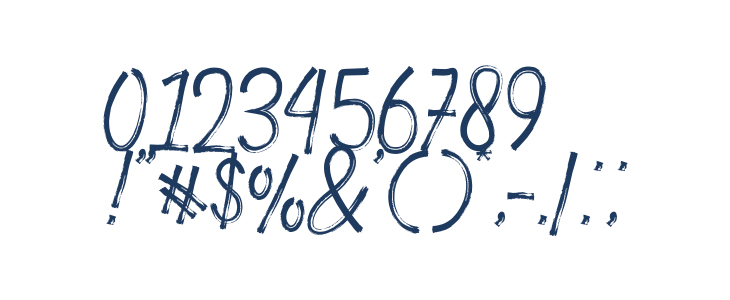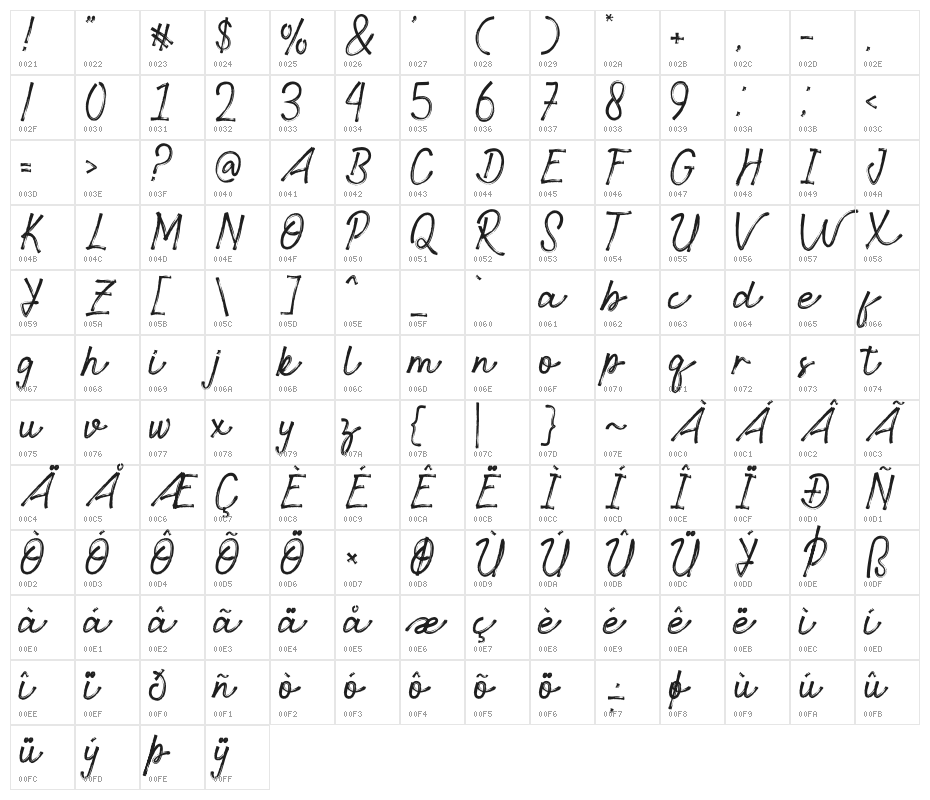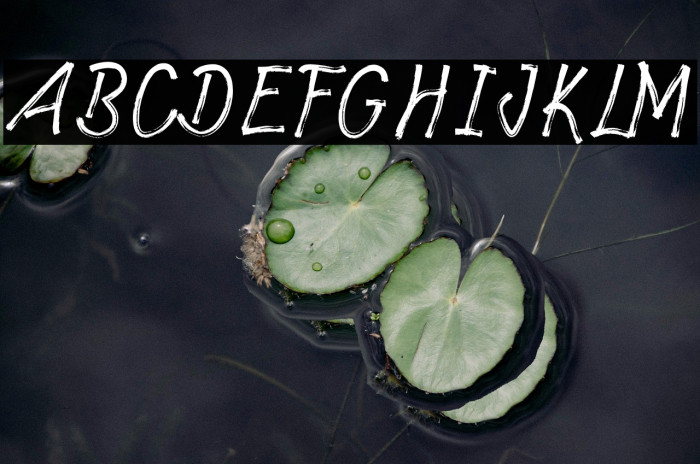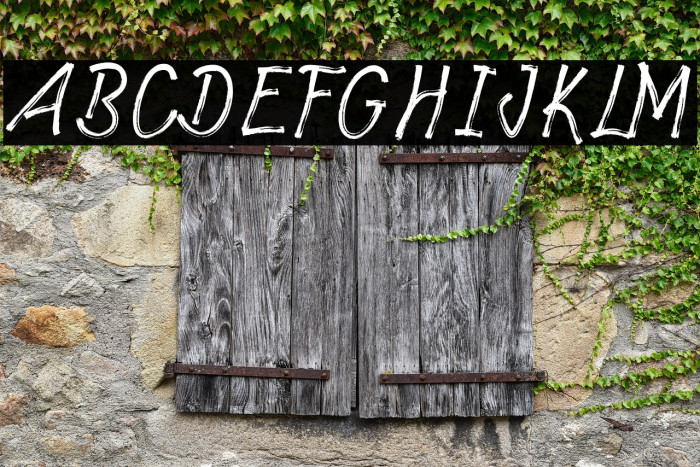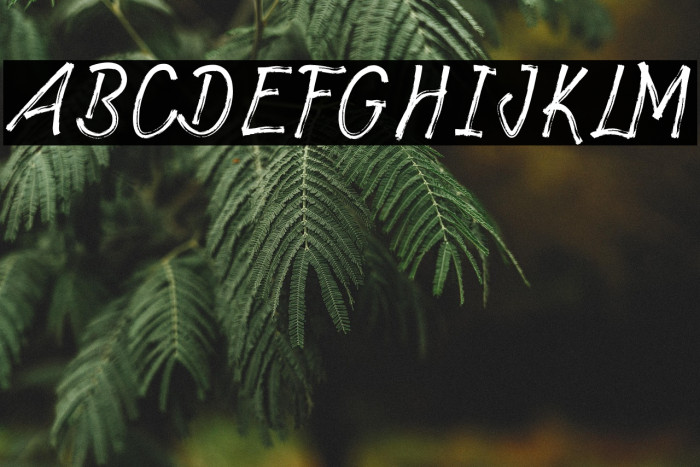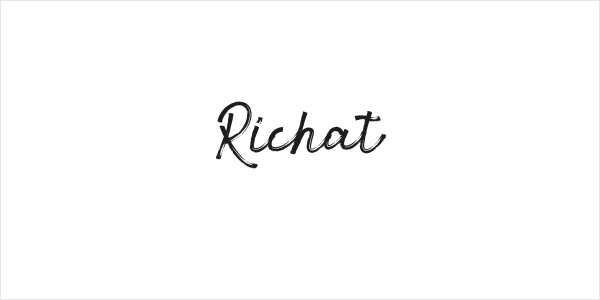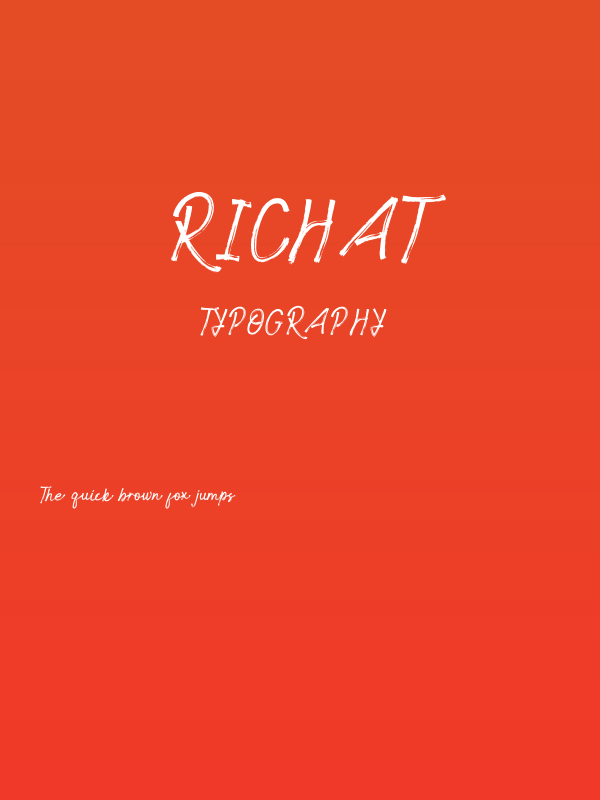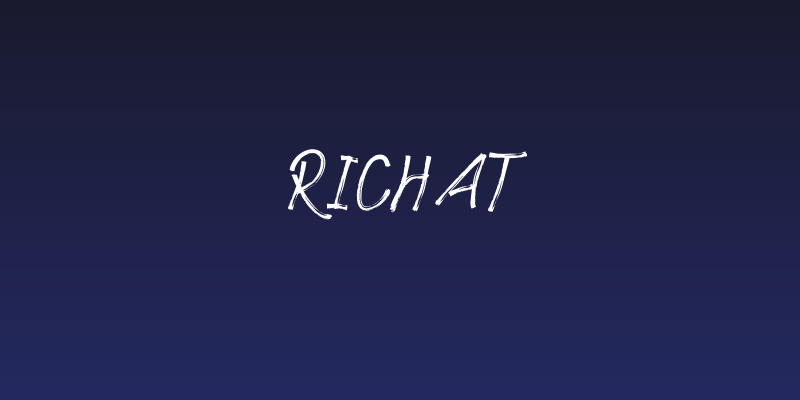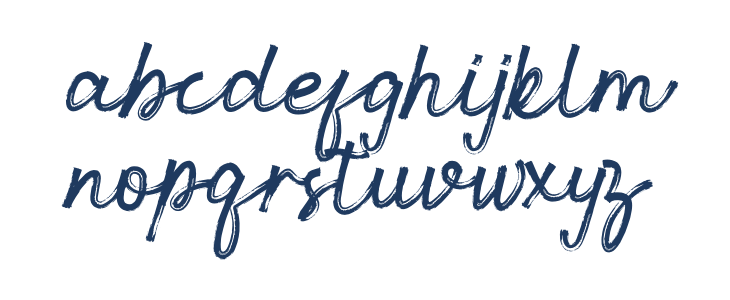
Richat Font
Richat Description
This font features a dynamic and expressive handwritten style, characterized by its fluid strokes and playful curves. The uppercase letters exhibit a bold and confident presence, while the lowercase letters maintain a consistent flow, enhancing readability. Numbers and special characters are crafted with the same energetic flair, making them stand out. The overall design is reminiscent of casual handwriting, with a touch of artistic flair, perfect for adding a personal touch to any project.